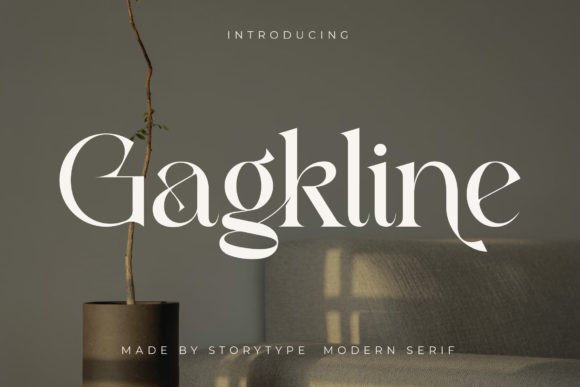
Introducing Gagkline Font, the epitome of elegance and sophistication in the world of typography. Its timeless serif structure, meticulously crafted by the renowned Storytype Studio, exudes an air of authority and professionalism, making it the perfect choice for business cards, logos, and any project demanding a touch of refinement.
With Gagkline, your words will command attention, leaving a lasting impression on clients, colleagues, and customers alike. Its graceful curves and sharp terminals lend a sense of luxury and prestige, elevating your designs to new heights. Whether you're creating a brand identity, designing a marketing campaign, or simply seeking a font that oozes class, Gagkline is your answer.
Step into the realm of elegance with Gagkline, a font that embodies confidence and distinction. Its bold strokes and delicate serifs create a visual symphony, captivating audiences with their charm and finesse. Let Gagkline be your creative partner, guiding you towards design excellence.
Unleash your creativity with Gagkline, a font that empowers you to craft designs that speak volumes. From book covers that exude literary brilliance to fashion labels that radiate luxury, Gagkline seamlessly adapts to your vision, transforming your ideas into tangible masterpieces. Experience the joy of seamless design with Gagkline, your gateway to typographic excellence.